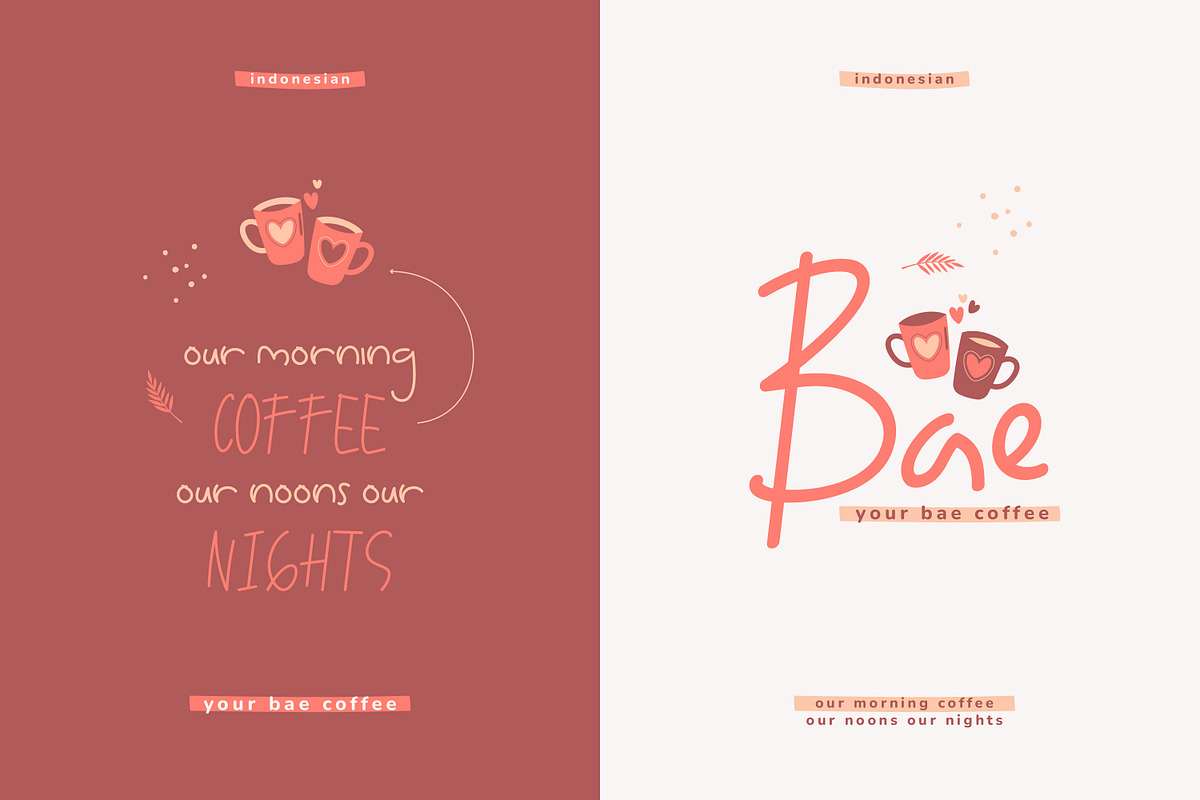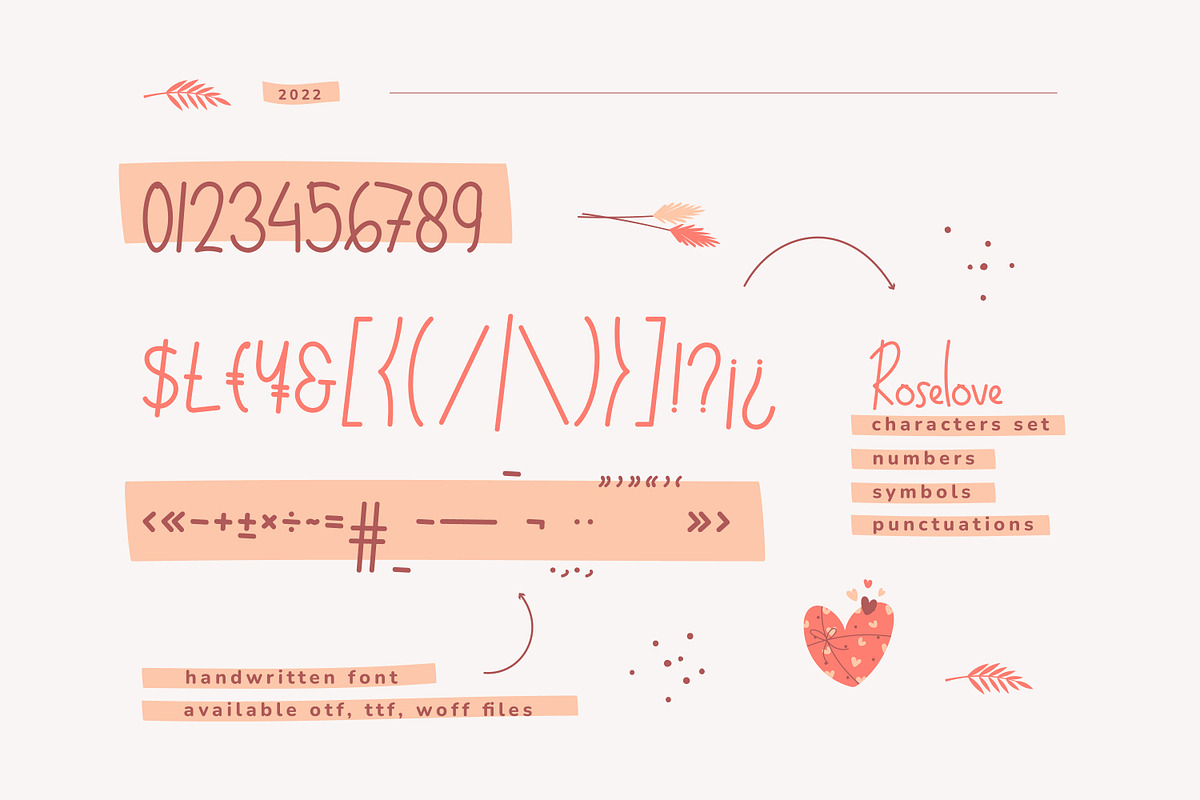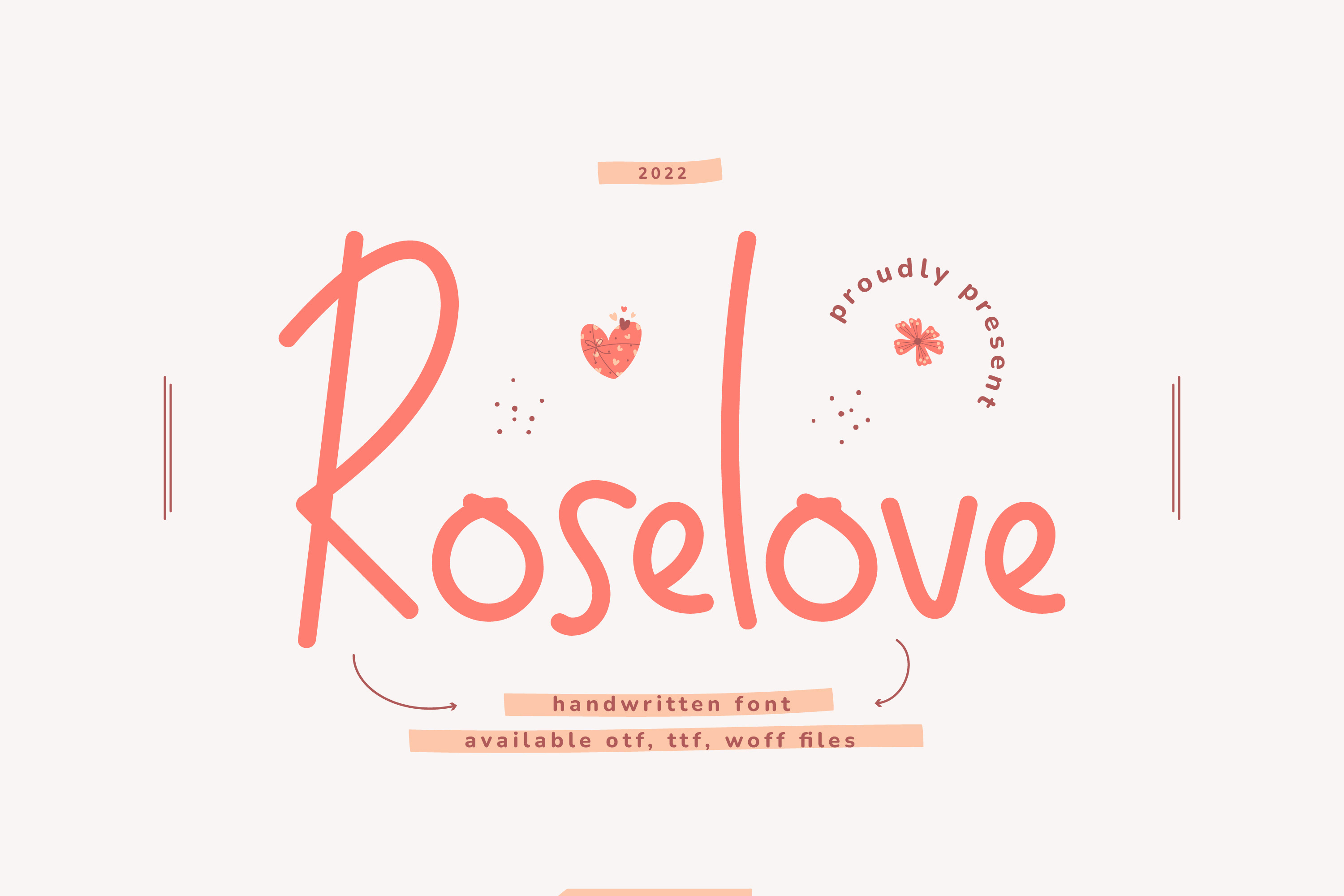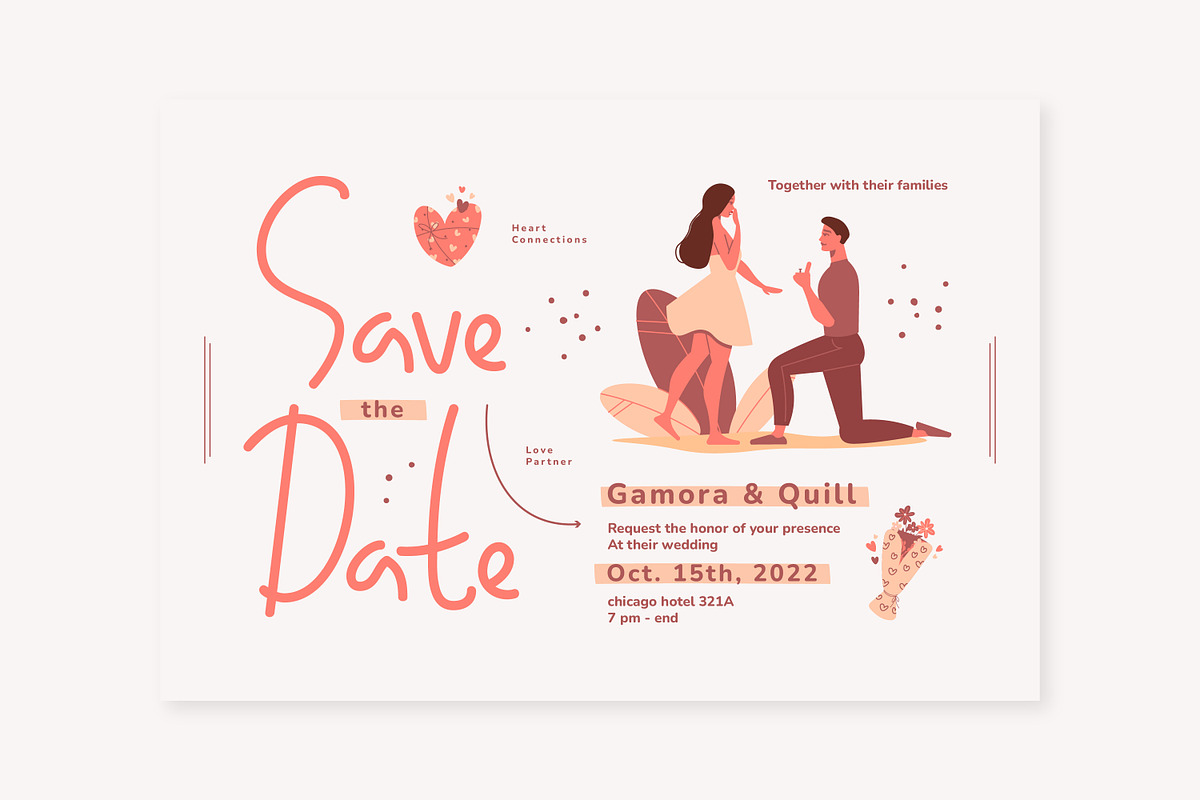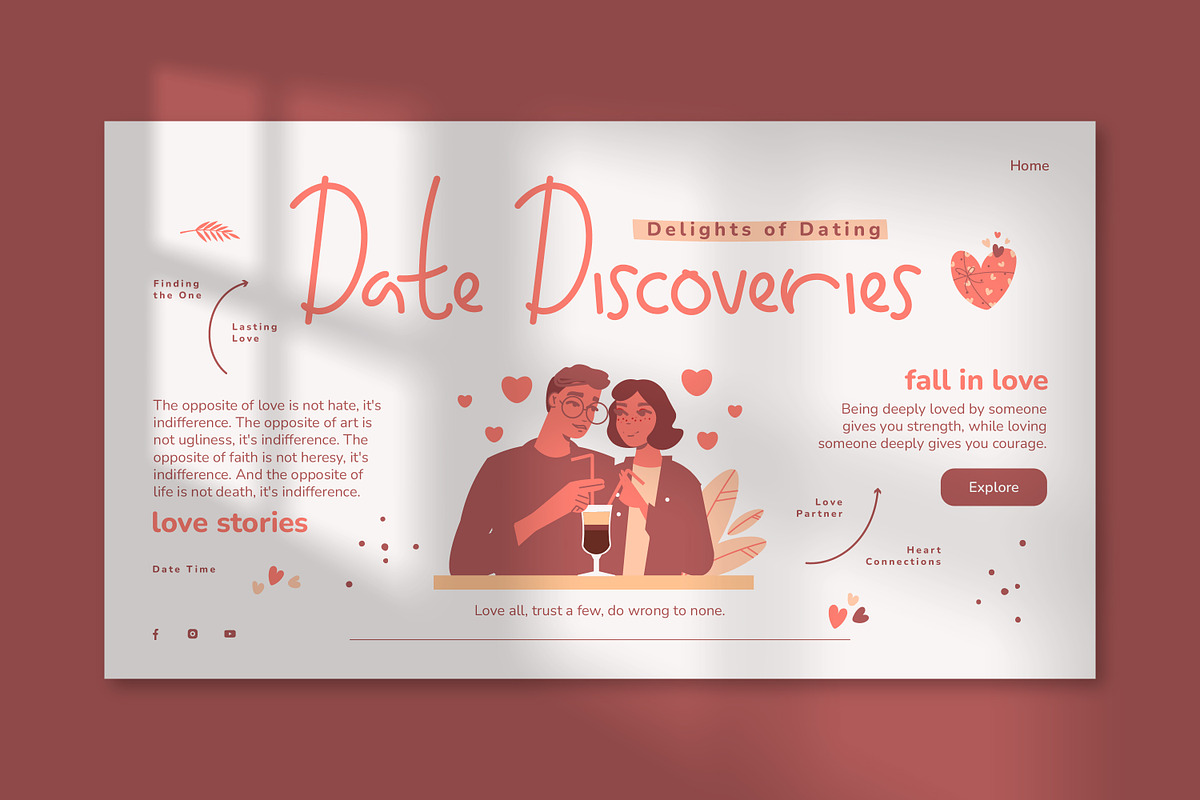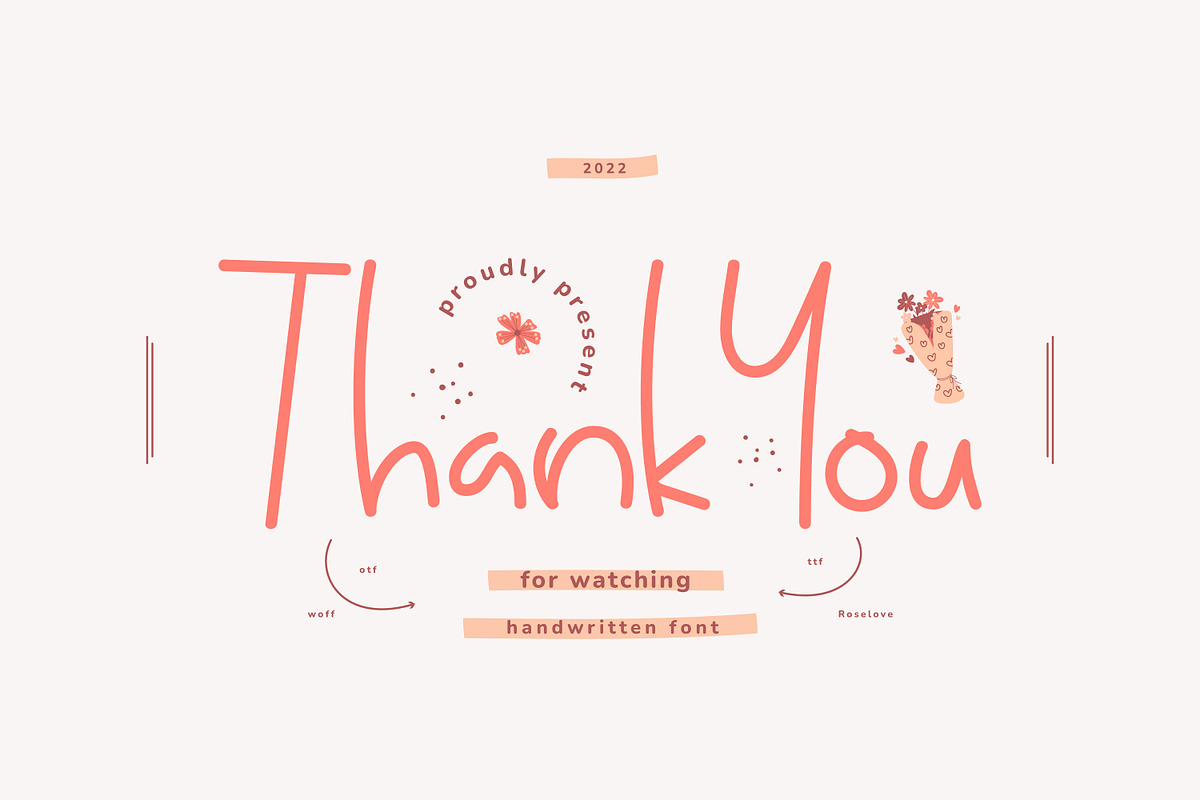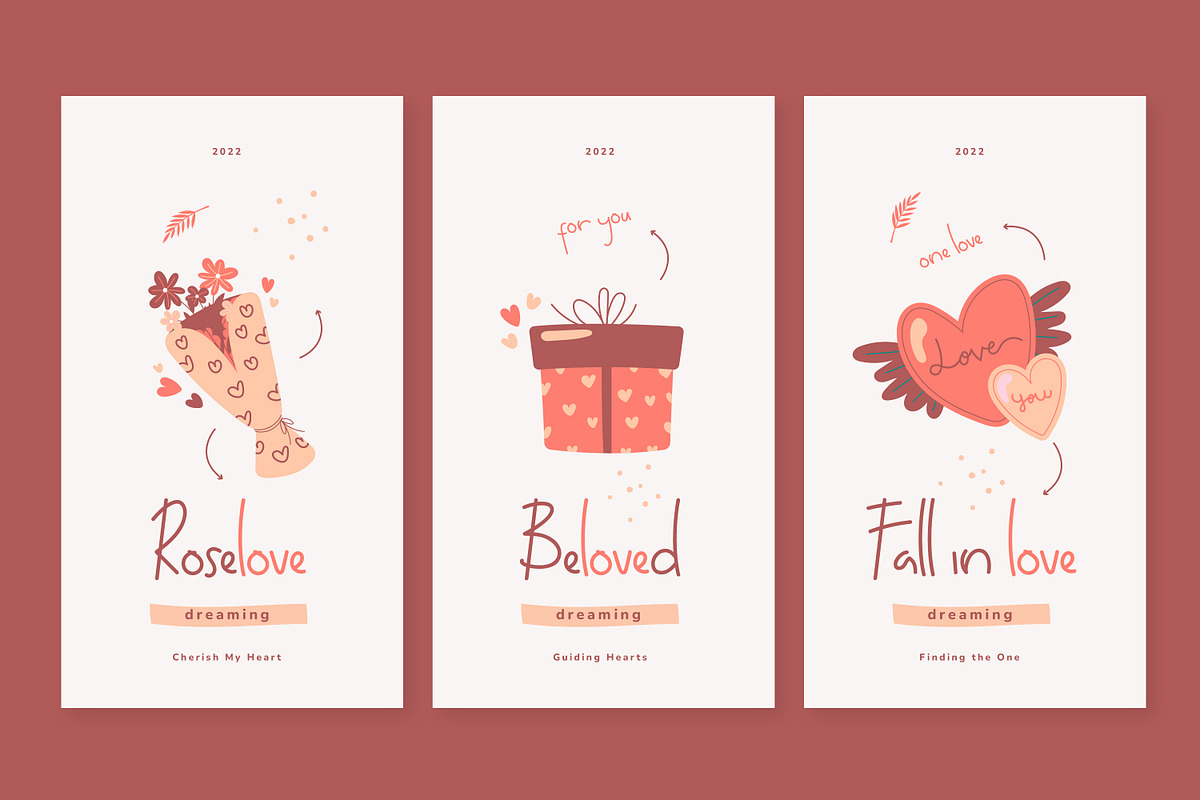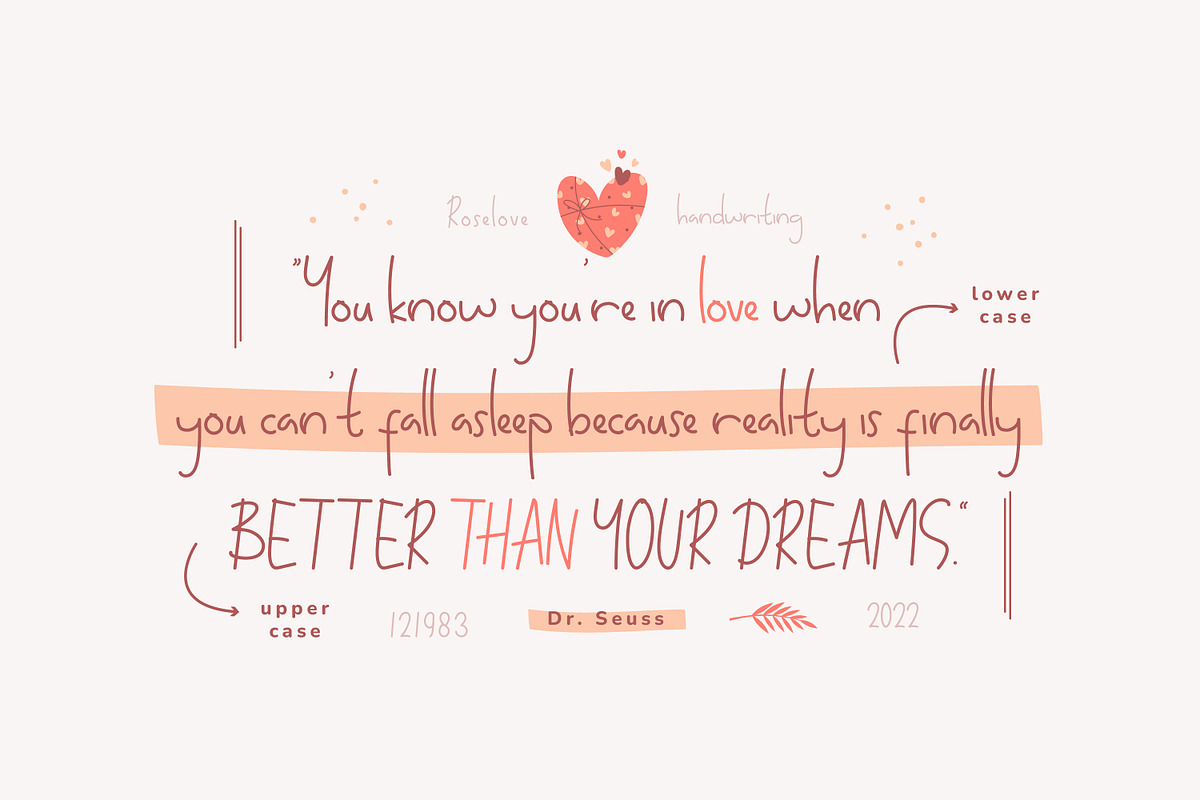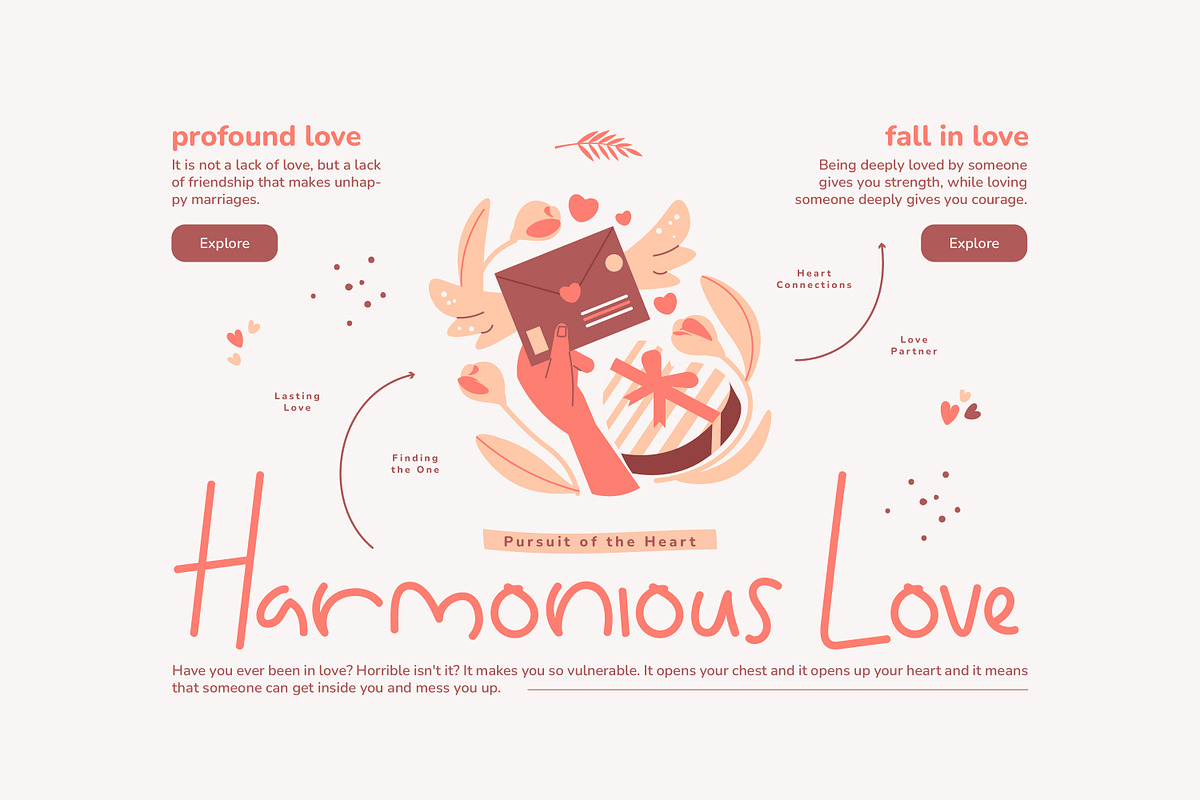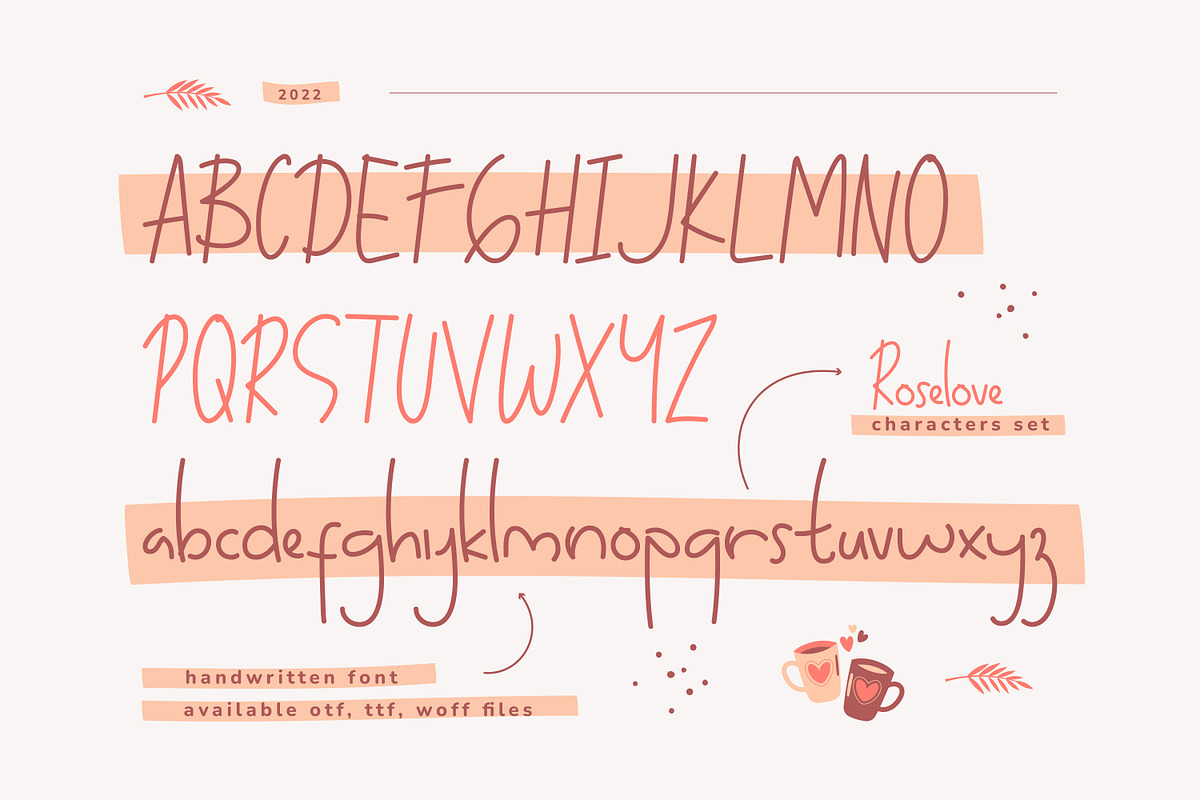
Roselove Playful Handwritten Font
Roselove is a friendly and playful handwritten font. Its unique characters are perfect for notebooks, product packaging, digital notes, invitations, wedding designs, and more.
- OpenType Features (Stylistic Set)